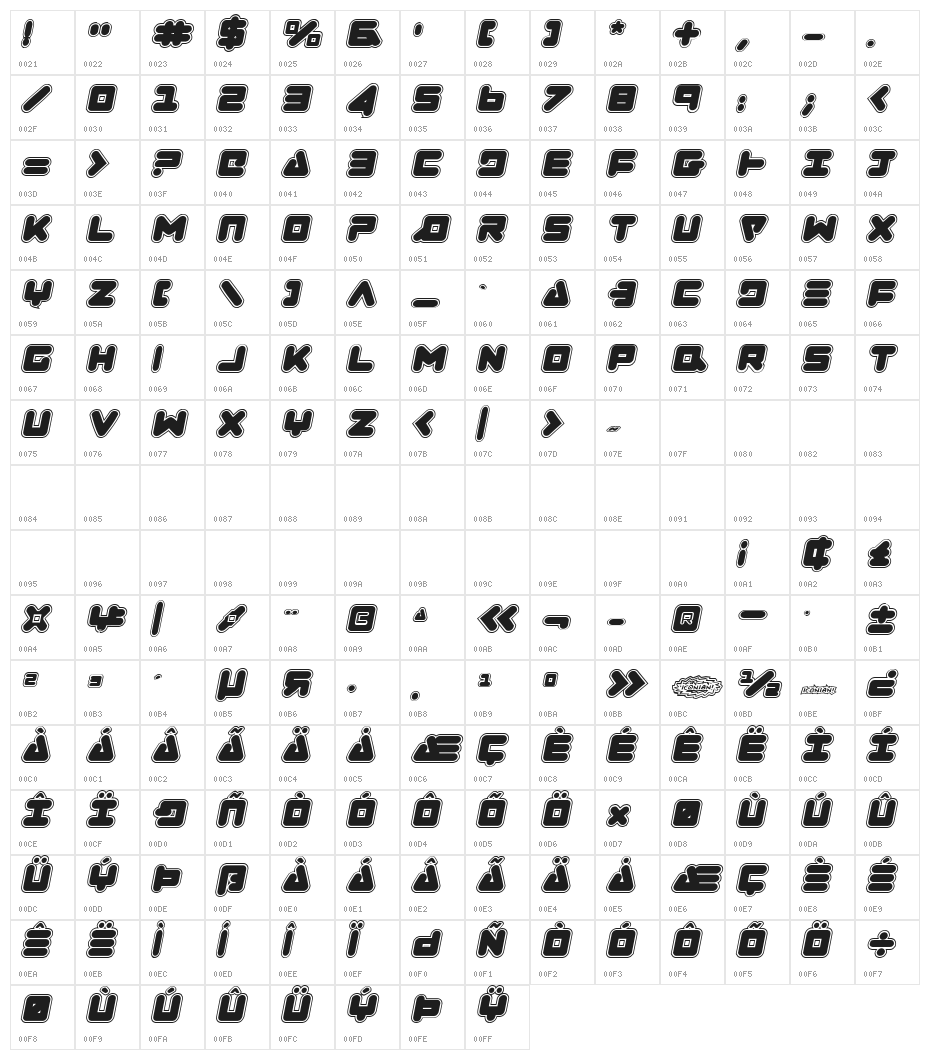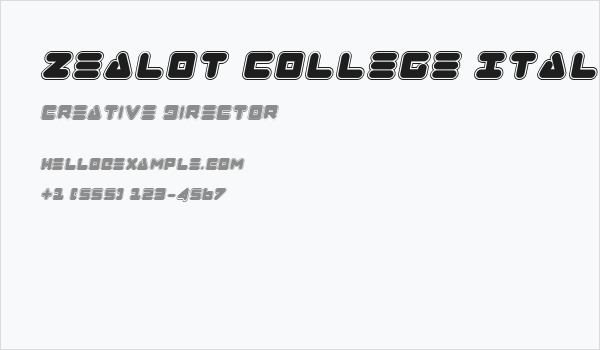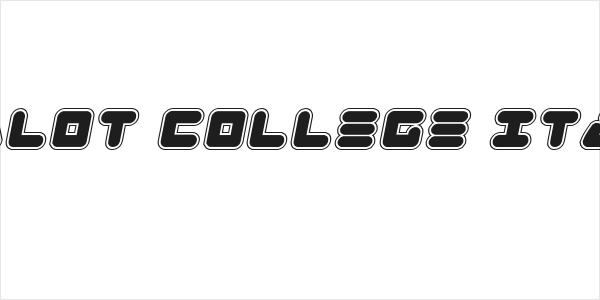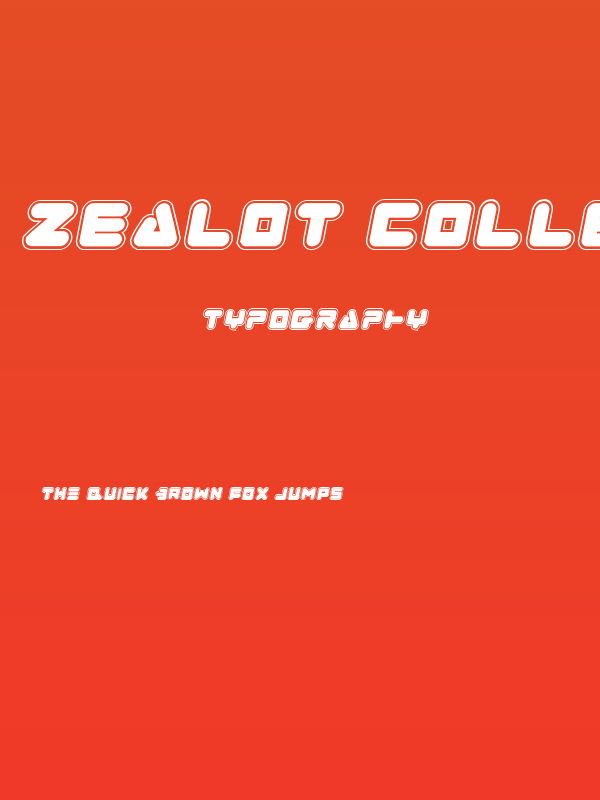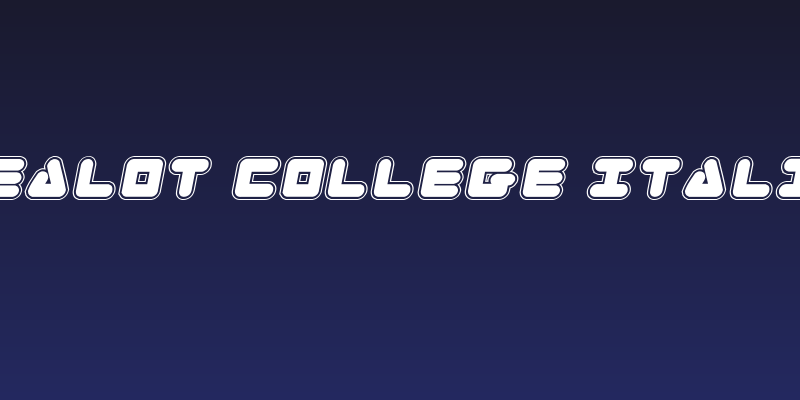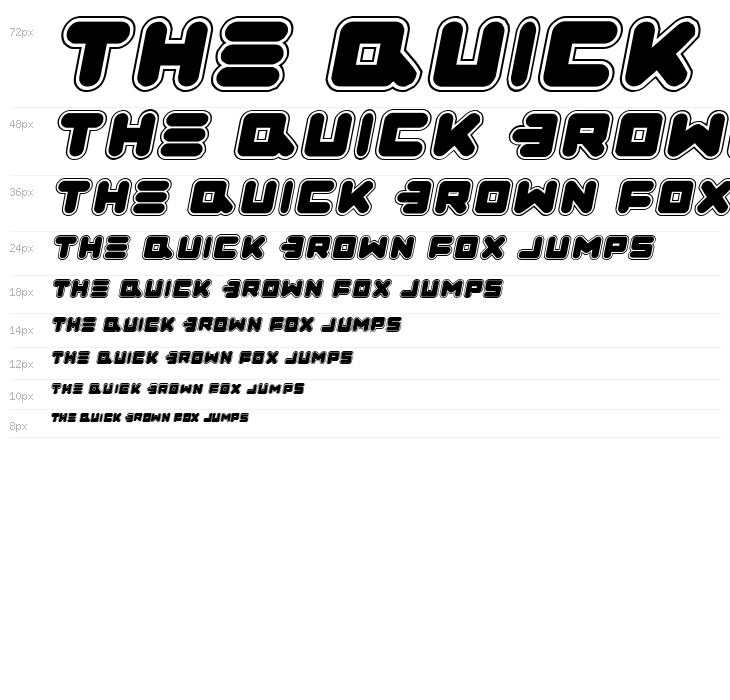
Zealot College Italic Font
Zealot College Italic Description
This font features a bold, geometric design with a distinct outline that gives it a three-dimensional appearance. The characters are uniformly thick, with rounded edges and a consistent stroke width throughout. The uppercase and lowercase letters maintain a cohesive style, with the lowercase mirroring the uppercase in form. Numbers and special characters are designed to match the bold, outlined aesthetic, ensuring a harmonious look across all text elements. The font's playful yet structured appearance makes it ideal for eye-catching designs.
| Proposed Projects | Ideal for sports team branding, college event posters, and dynamic logo designs. |